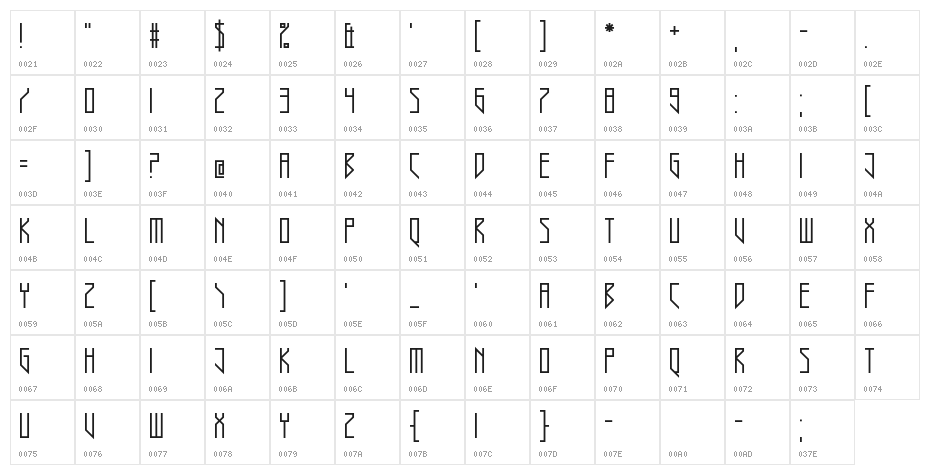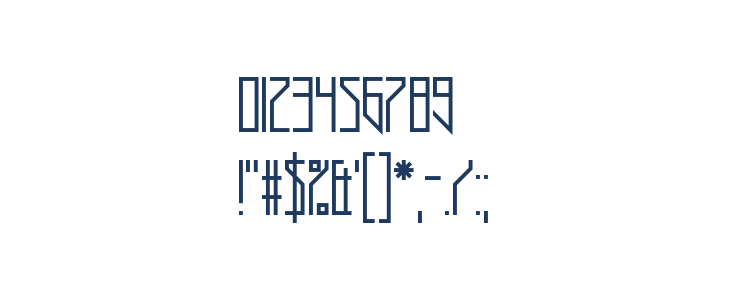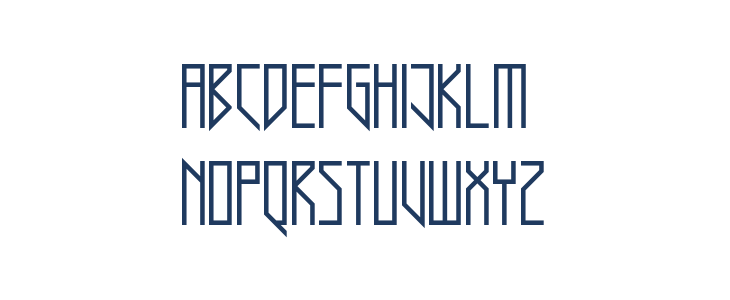
Havannah Hank Font
Havannah Hank Description
This font features a geometric and angular design, characterized by its sharp edges and linear forms. The uppercase and lowercase letters maintain a consistent height, creating a uniform appearance. The numerals and special characters follow the same angular style, enhancing the overall cohesiveness. The font's structure is reminiscent of architectural elements, with a modern and futuristic aesthetic. Its clean lines and minimalistic approach make it suitable for contemporary design projects. The characters are evenly spaced, providing a balanced and readable text flow.
HAVANNAH-HANK UPPERCASE
HAVANNAH-HANK LOWERCASE
HAVANNAH-HANK OTHER CHARS